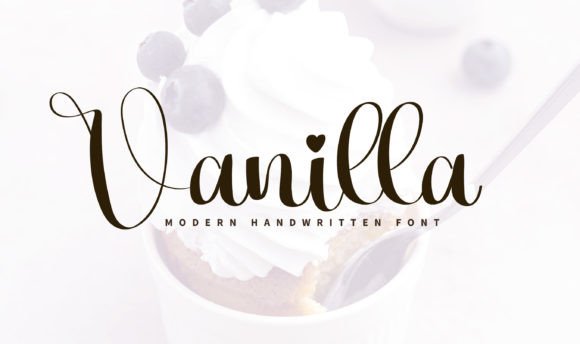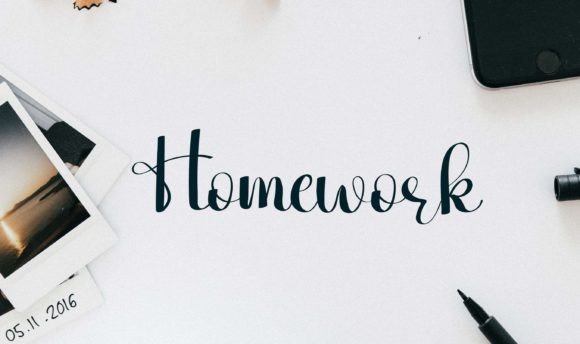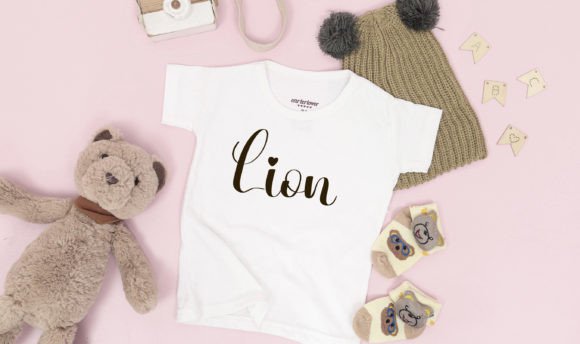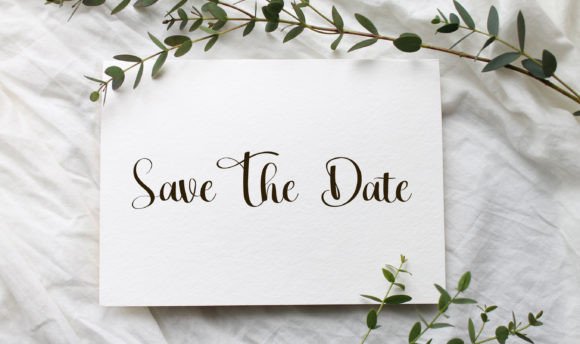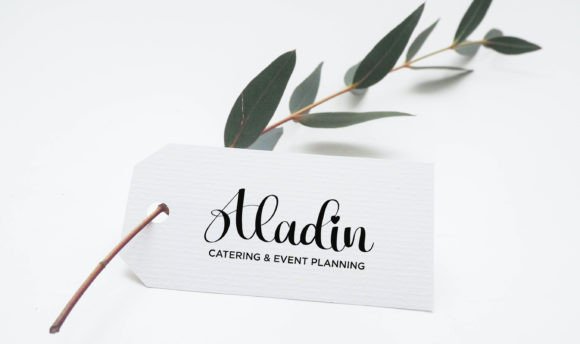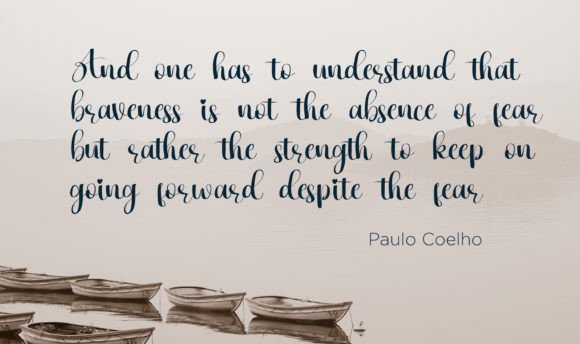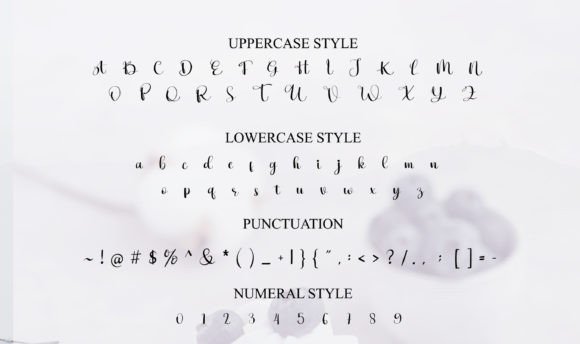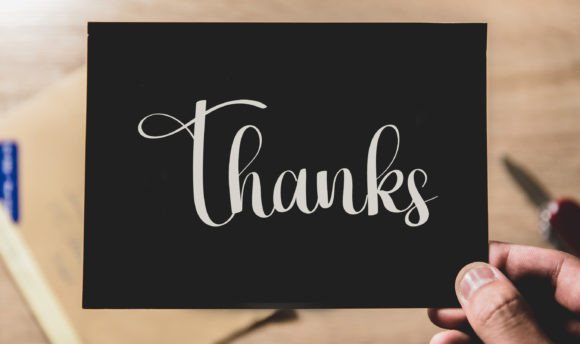
Vanilla Font
About Vanilla Font
Vanilla is a charismatic handwritten font that brings character and a unique charm to your designs. This font is crafted to make your design ideas stand out and capture attention. With its distinctive appeal, Vanilla is suitable for a wide range of applications. Whether you’re working on invitations, labels, packaging, menus, logos, fashion, stationery, romantic novels, magazines, brand identity, or various other project designs, Vanilla adds a touch of creativity and eye-catching flair.
The character of Vanilla shines through in its handwritten style, making it a versatile choice for different contexts. In invitations and greeting cards, Vanilla enhances the overall charm, creating visually appealing and unique pieces suitable for special occasions.
For branding and logo design, Vanilla becomes a standout choice. Its charismatic and distinctive script adds a touch of authenticity and creativity, making it ideal for businesses seeking a brand identity with personality.
In the fashion and clothing industry, Vanilla can be used for labels, tags, and promotional materials. Its character and unique charm complement the fashion aesthetic, making the brand memorable.
For digital designs, social media, and online presence, Vanilla stands out with its handwritten appeal. It brings a sense of creativity and charm to Instagram posts, websites, cartoons, YouTube content, and more, making your online content visually engaging.
In literature, including romantic novels, magazines, and books, Vanilla becomes a captivating choice. Its charismatic and handwritten style adds a personal touch to the text, enhancing the overall reading experience.
The adaptability of Vanilla extends to posters, games, and various design projects where its unique handwritten script ensures that it stands out and adds a touch of creativity.
In summary, Vanilla is more than just a font; it’s a design tool that brings character and a unique handwritten aesthetic to your text. Whether used for invitations, branding, social media, literature, or other projects, Vanilla adds a creative and eye-catching touch, making your designs memorable and visually appealing.